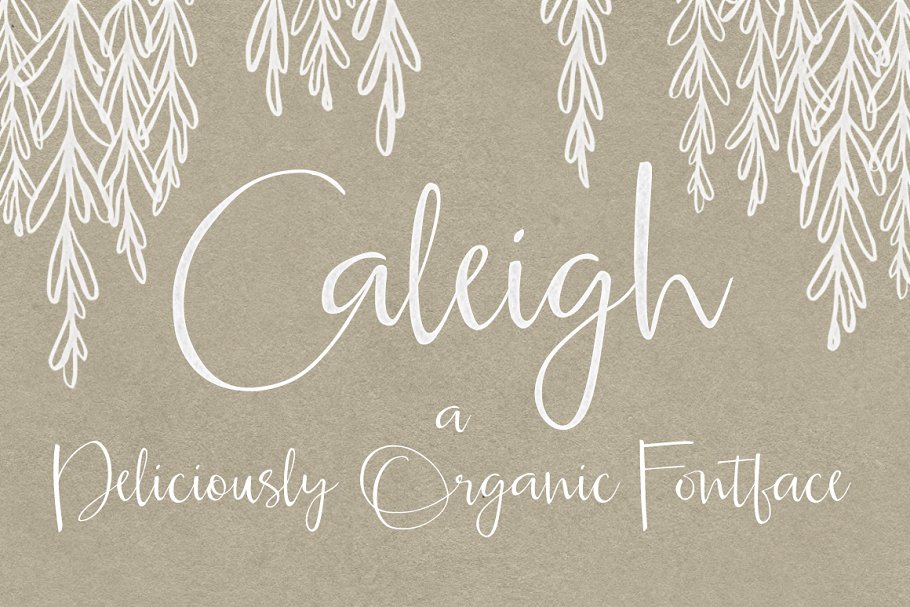
Introducing Caleigh Script Font with Bonus, a stunning hand-lettered modern calligraphy script font created by Karen Smith. This font is the epitome of elegance and sophistication, with its large, sweeping, slender capitals and beautifully crafted lowercase letters that offer a variety of alternatives.
Caleigh is perfect for a wide range of projects, including invitations, greeting cards, typographical art, logos, letterpress printing, and so much more. Its flowing, handwritten style adds a touch of charm and uniqueness to any design.
What sets Caleigh apart is its attention to detail. Karen Smith is dedicated to improving this font and will regularly provide updates, including additional ligatures and alternate characters, ensuring that you always have the best version at your fingertips.
With Caleigh, the possibilities are endless. Its versatility allows you to unleash your creativity and bring your ideas to life. Whether you're a professional designer or simply someone who appreciates beautiful typography, this font will not disappoint.
To fully appreciate the beauty of Caleigh, take a closer look at the second image in the previews above. You'll find a comprehensive showcase of all the characters this font has to offer.
But wait, there's more! When you purchase the Caleigh Font, you'll also receive a bonus Photoshop brush set. This set includes hand-drawn willow and floral images, as seen in the images above, along with their transparent PNG files. These additional resources will further enhance your creative projects and inspire your designs.